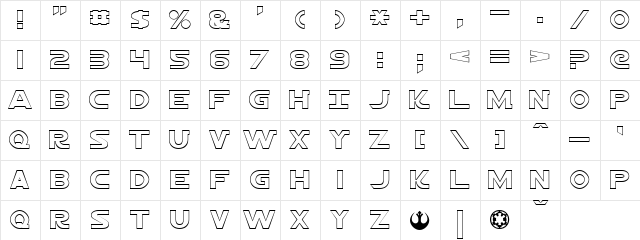
Jedi Hollow Normal
Design Context for Jedi Hollow Typeface
Jedi Hollow takes a measured approach to typography — its balanced proportions and neutral character make it a reliable workhorse for both digital and print work.